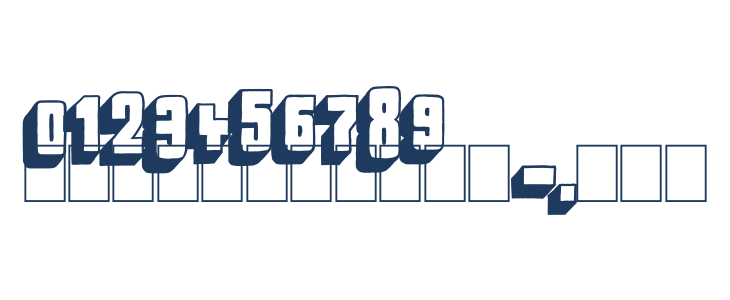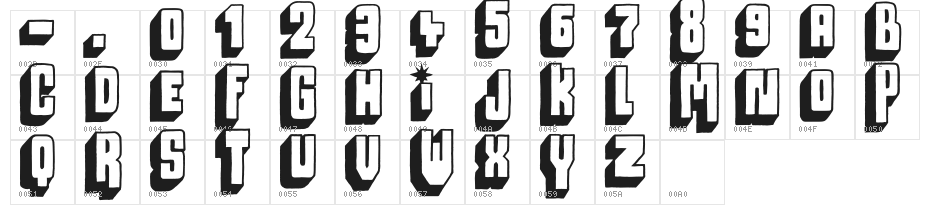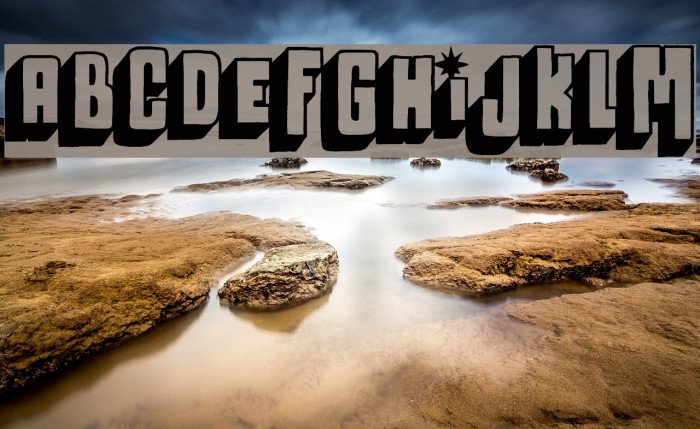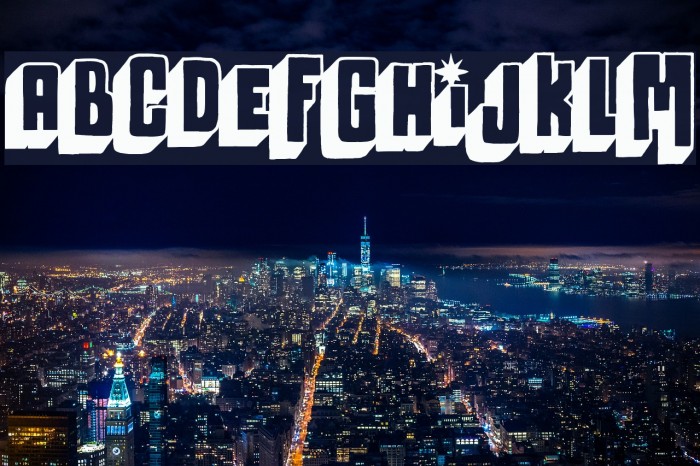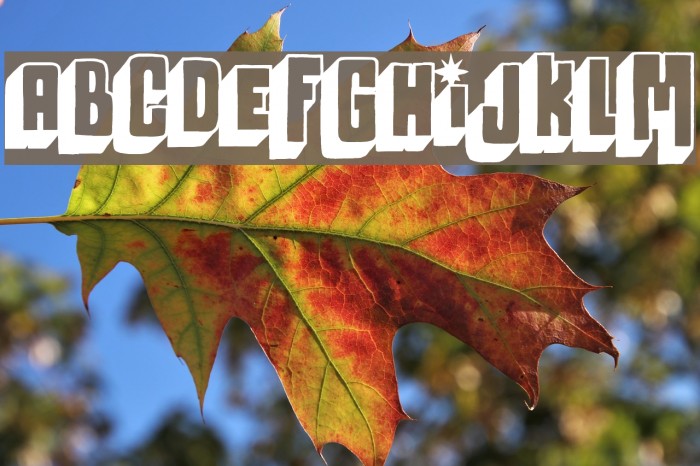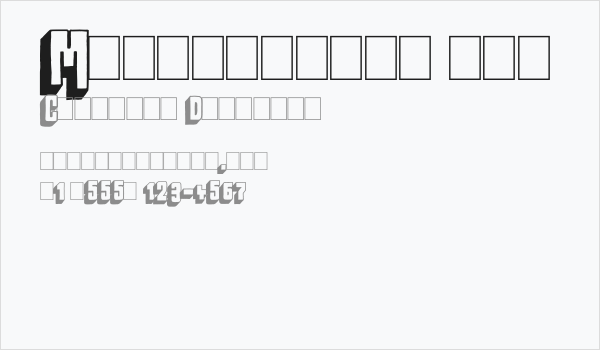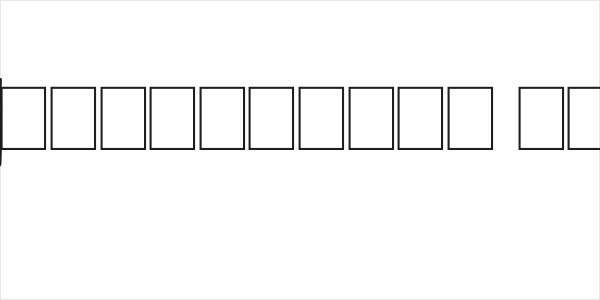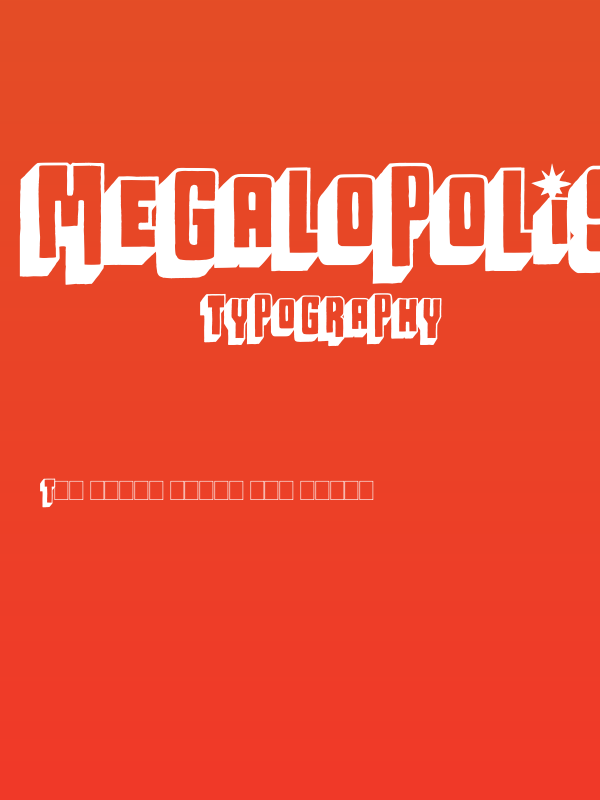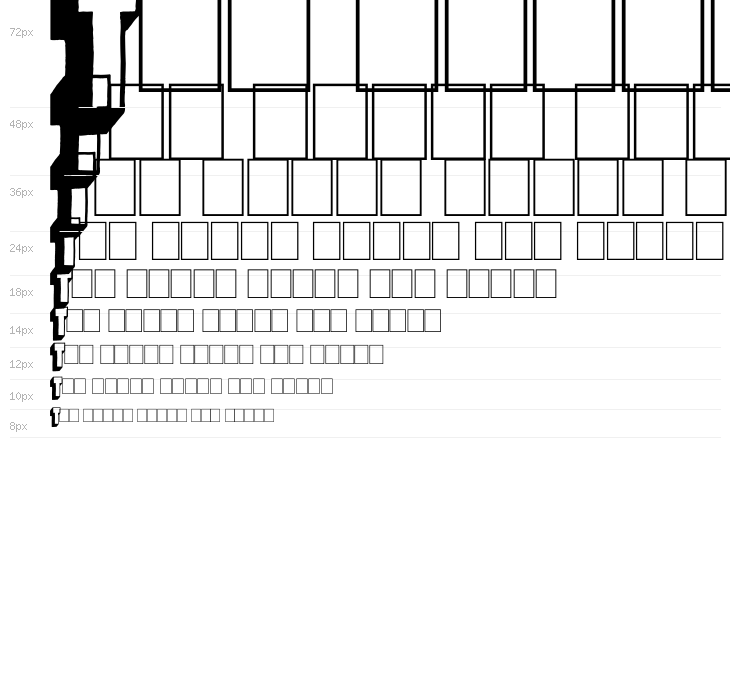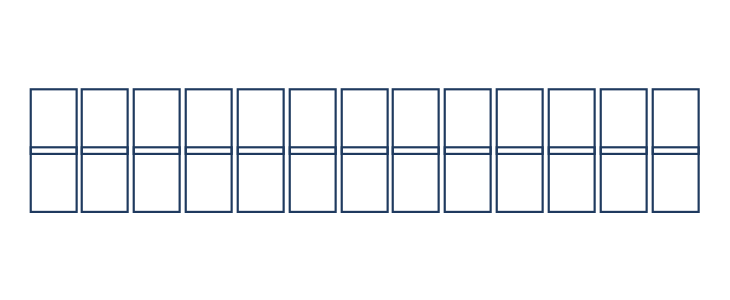
Megalopolis off Font
Megalopolis off Description
This font features a bold, three-dimensional style with a strong shadow effect, giving it a striking and impactful appearance. The characters are uppercase with a blocky, geometric design, and the shadow adds depth, making each letter stand out prominently. The font includes a full set of uppercase letters, numbers, and a selection of special characters. The design is reminiscent of retro or vintage styles, often used in signage or posters to grab attention. The boldness and shadowing make it ideal for creating a sense of depth and dimension in design projects.
| Proposed Projects | Ideal for posters, signage, logos, and any project requiring a bold, attention-grabbing typeface. |